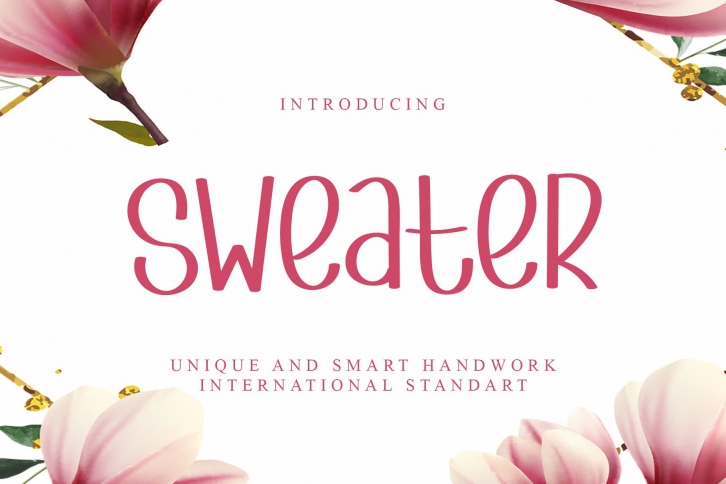
Sweater is a beautiful font that was designed by Giart Studios. It's a great choice for designers and creatives who need such a font. It was released on May 14, 2022 and the file size is 2.89 MB. Sweater may give a more youthful, expressive and casual look to your project. It is a very beautiful, refined, elegant, and high-quality font.